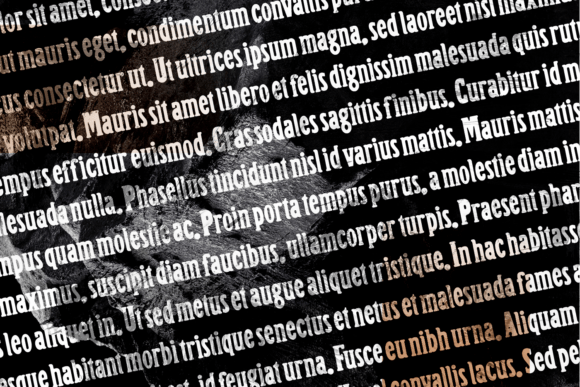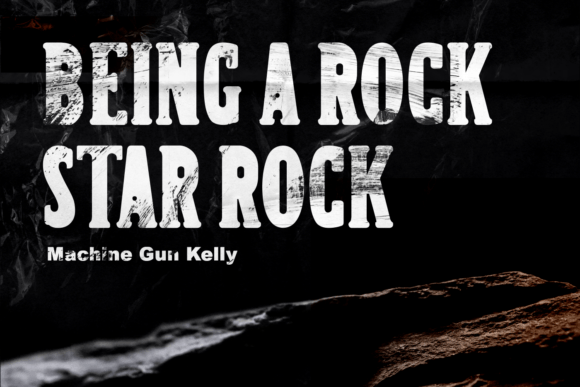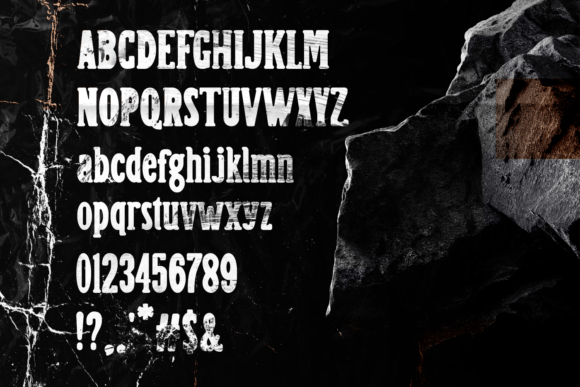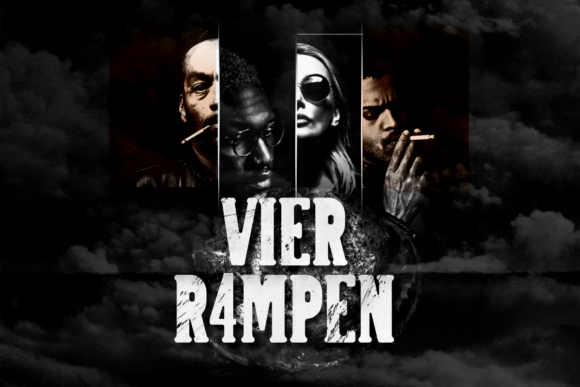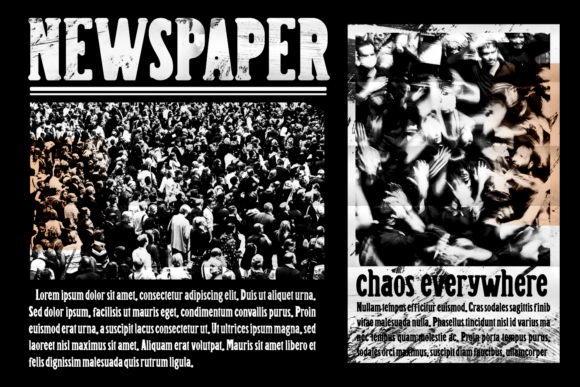
Introduction to Highan Font
As designers, we’ve all been there – staring at a blank canvas, trying to bring our creative vision to life. And sometimes, the perfect font can be the missing piece that sets our design apart. That’s where the Highan Font comes in – a stunning non-rigid serif display font that’s as versatile as it is beautiful.
With its unique blend of smooth lines and subtle serifs, Highan Font is perfect for designers who want to add a touch of sophistication to their creative projects. Whether you’re working on a branding project, a wedding design, or a social media post, this high-quality font is sure to make a lasting impression.
- Unique, modern design aesthetic, perfect for adding a touch of sophistication to any creative project.
Honest Review: Highan Font
I recently stumbled upon the Highan Font while searching for a unique design resource for a creative project. I was pleasantly surprised by the quality of this font.
- High quality design: The Highan Font boasts a sleek and modern design that is perfect for any creative project.
- Limited characters: The Highan Font only includes a limited set of characters, which may be a drawback for designers who need a wide range of fonts for their projects.
- Lack of customization options: Unlike some other fonts, the Highan Font does not offer any customization options, which may be a limitation for designers who want to tailor their fonts to their specific needs.
Overall, I was impressed with the Highan Font and would definitely recommend it to designers who are looking for a high-quality, free design resource. However, it’s essential to be aware of its limitations before using it for a creative project.
Tips for Getting the Most Out of Highan Font
Highan Font is a versatile design resource that can be used for a variety of creative projects. To get the most out of it, try:
1. Using it with a transparent background for a clean and modern look.
2. Experimenting with different font sizes and styles to create visual interest.
Common Use Cases for Highan Font
Highan Font is ideal for:
1. Creating invitations and event graphics.
2. Designing business cards and brochures.
3. Adding a touch of elegance to your website or blog.